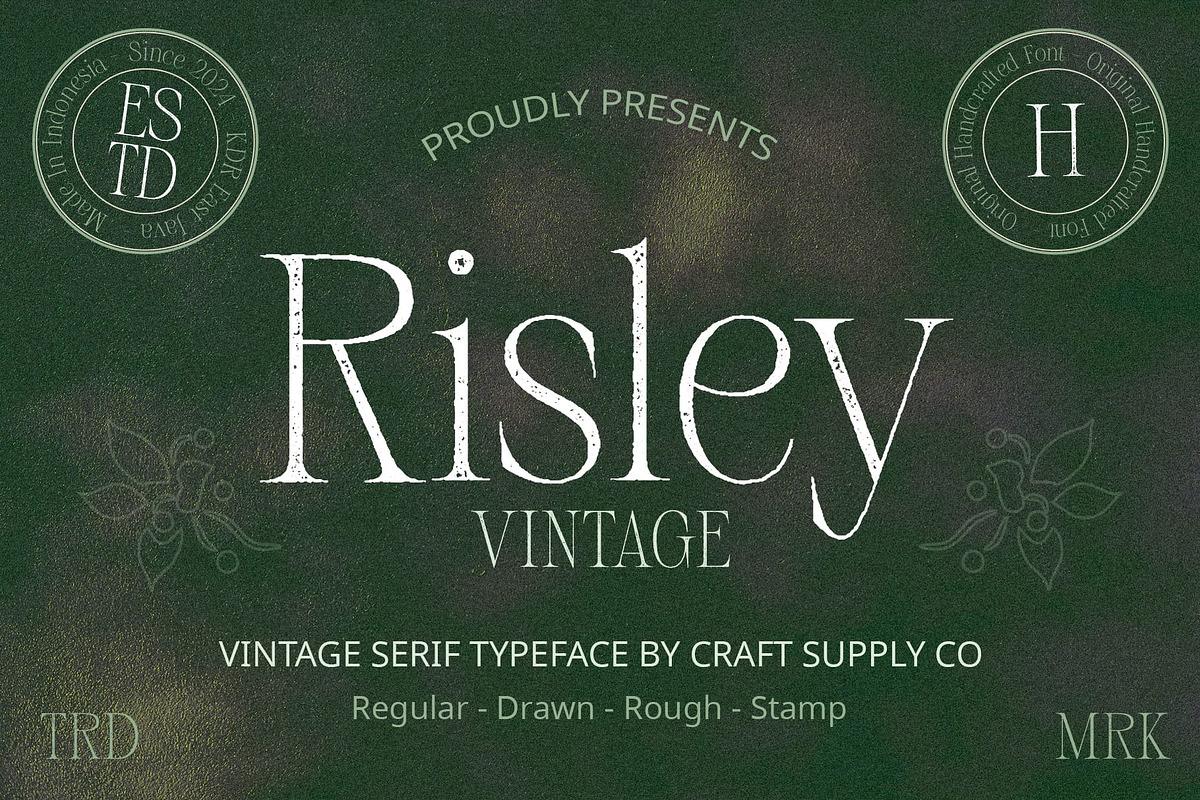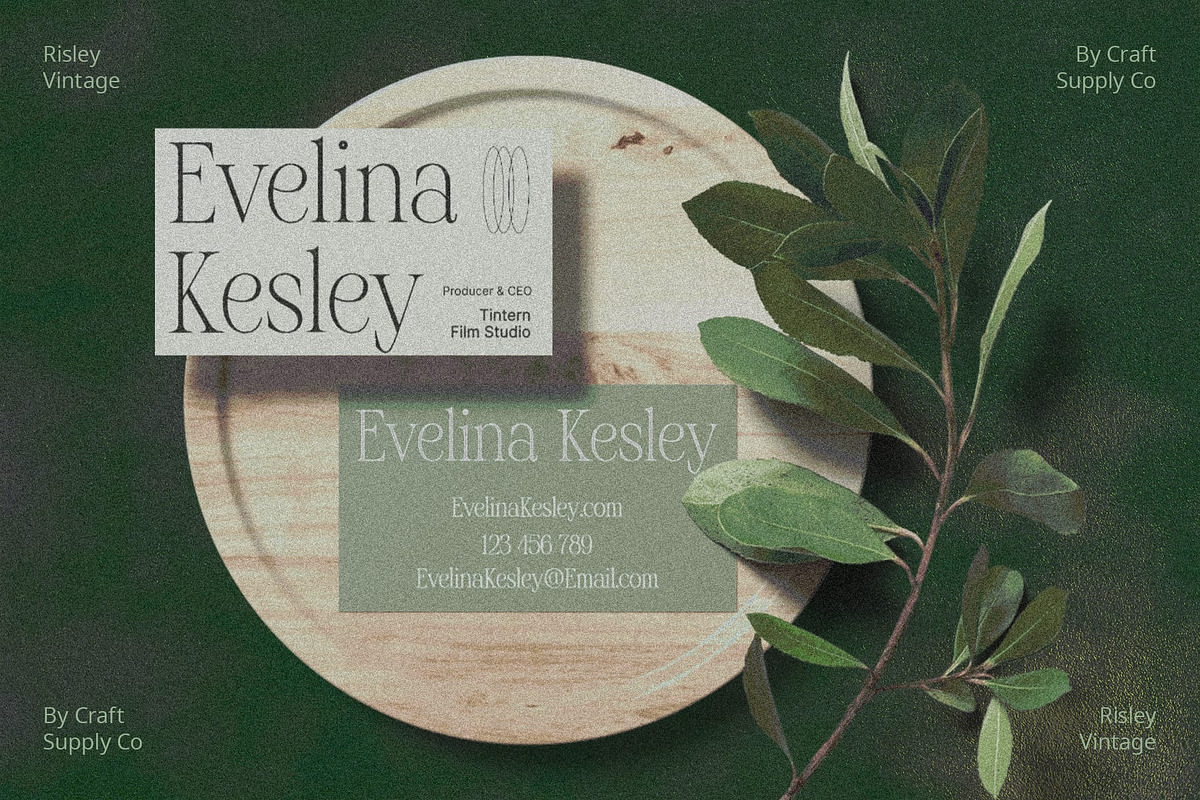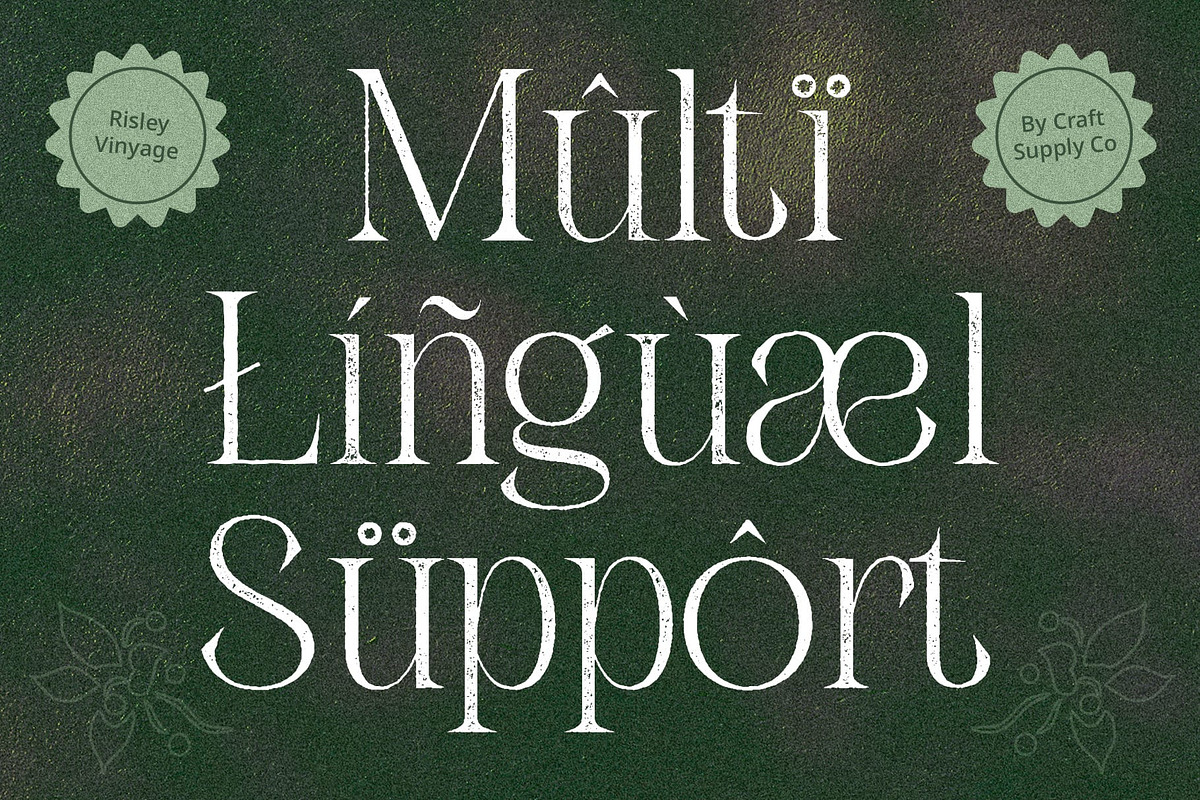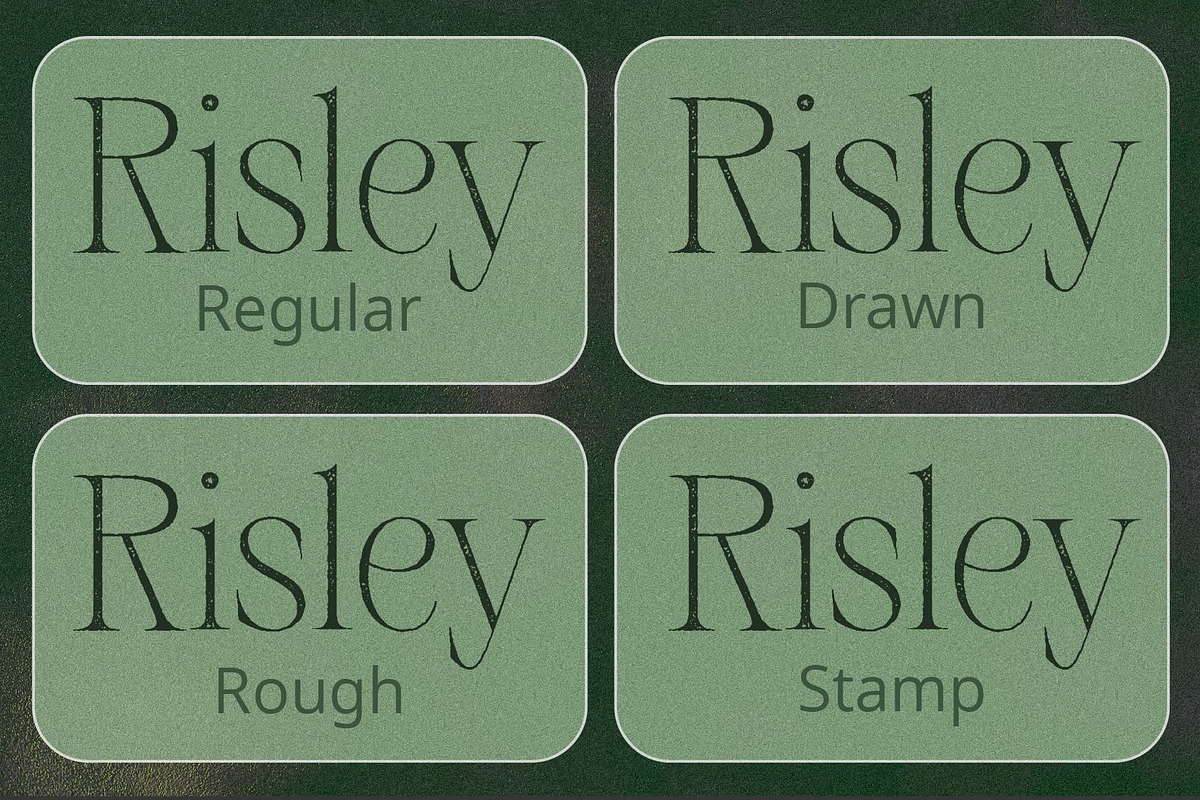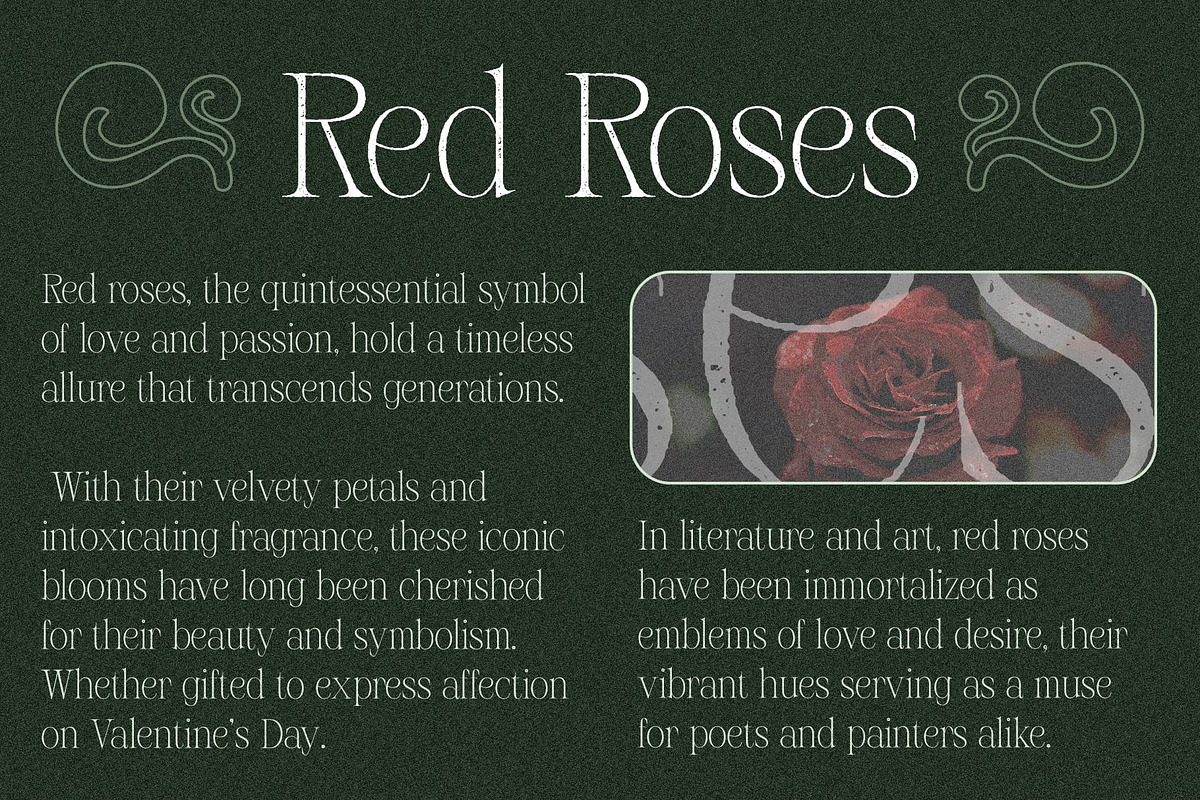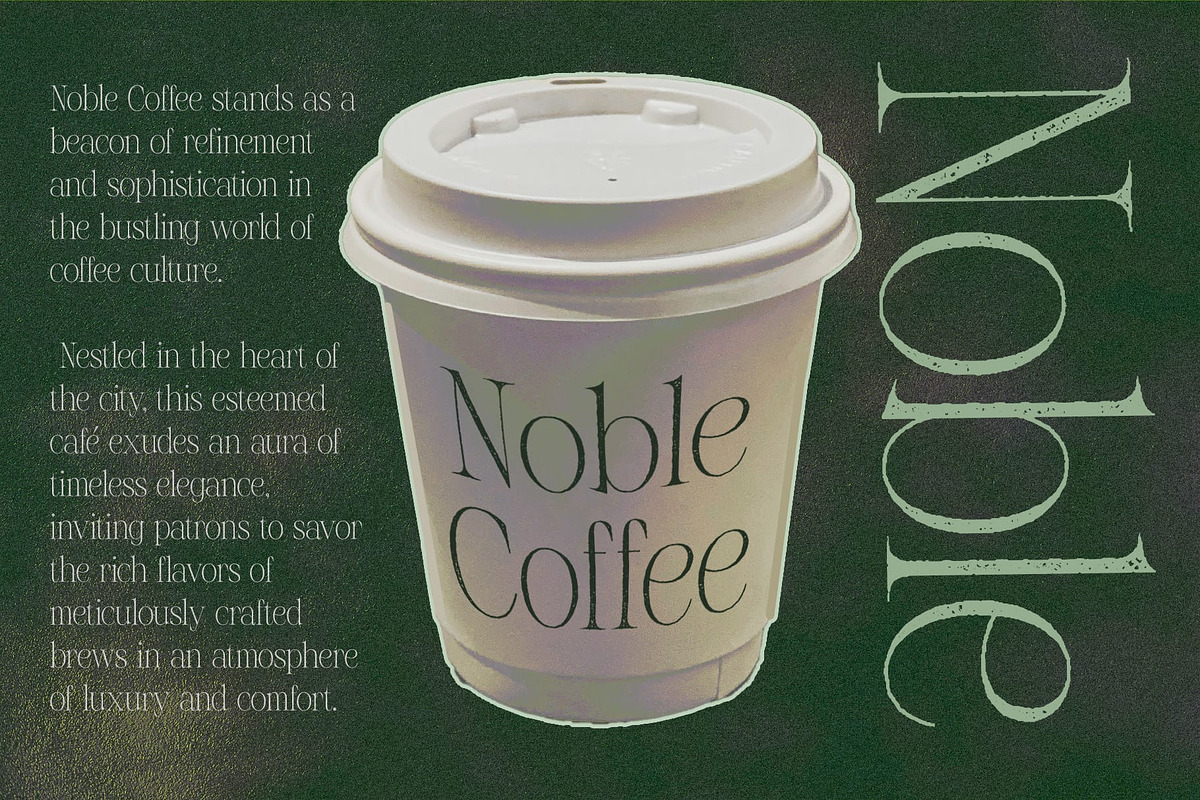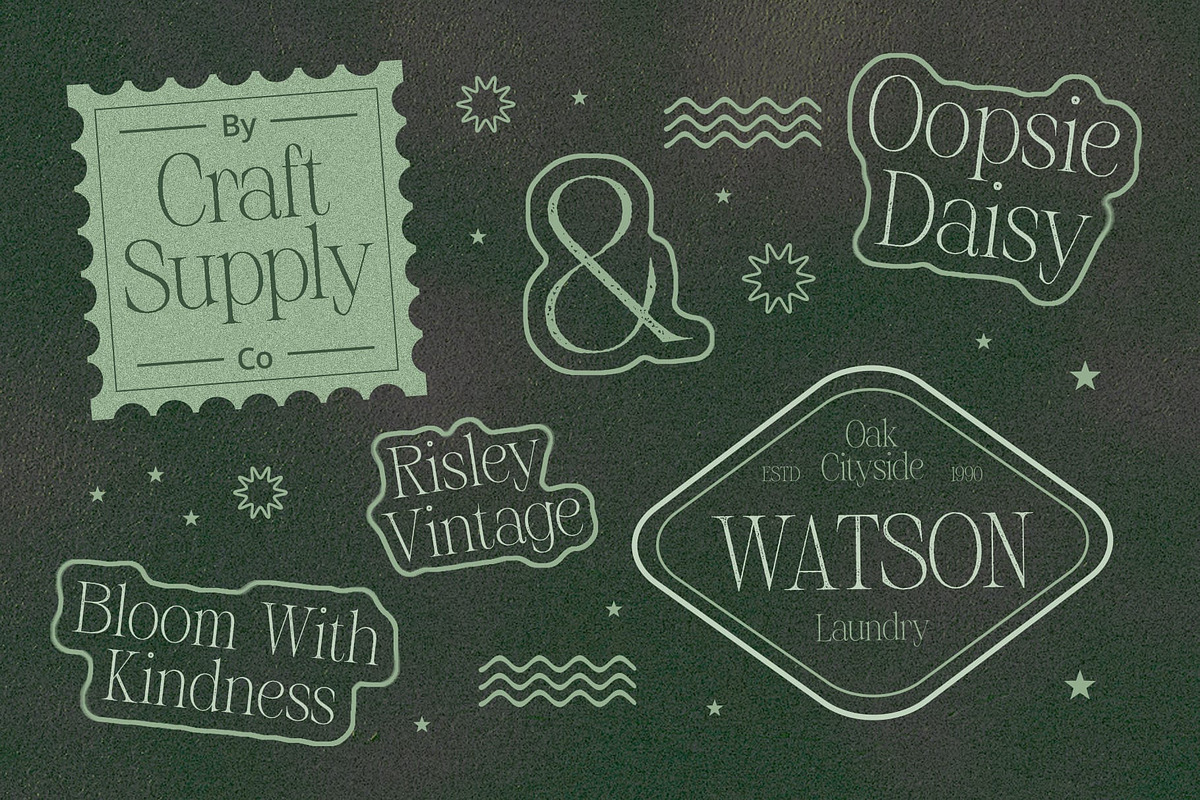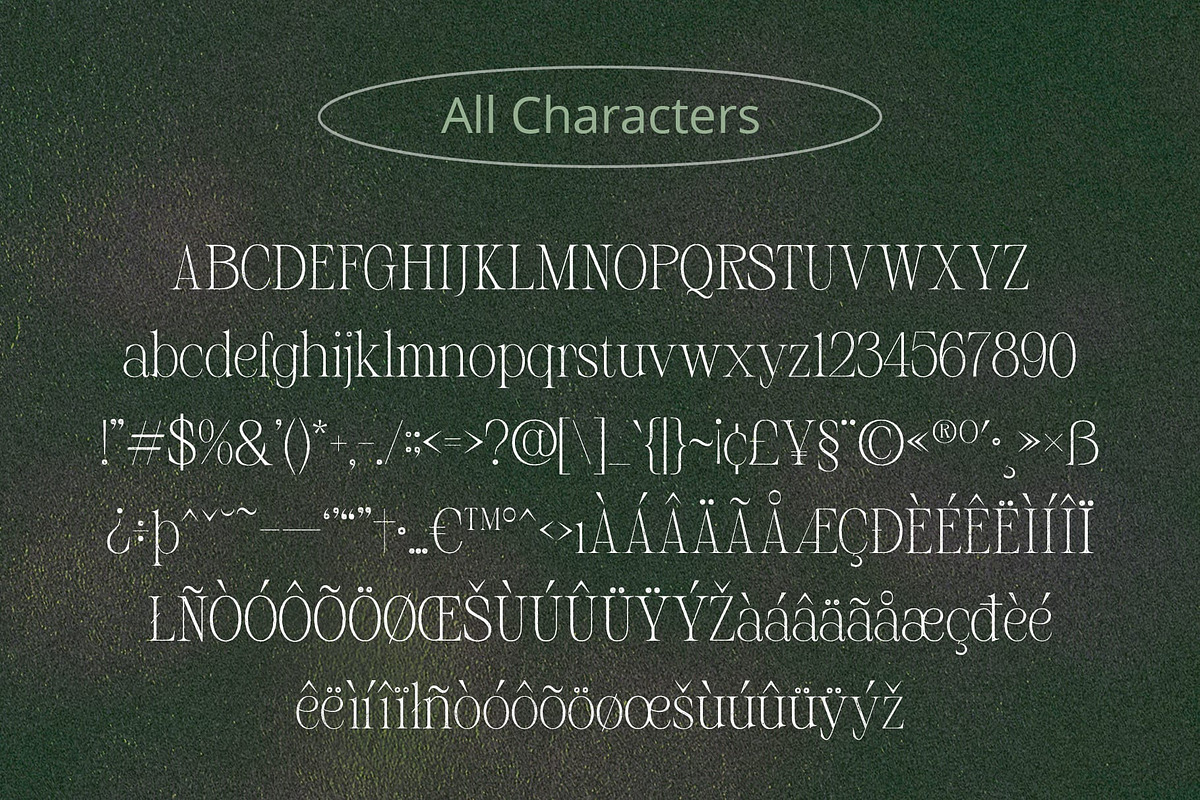
Risley Vintage
Risley Vintage: Evoking Nostalgic Vibes
Vintage Serif Appeal Risley Vintage presents a serif display font with a distinctive low-contrast design and thin strokes. Its elegant serif shapes exude a timeless charm reminiscent of classic typography.
Subtle Yet Striking With its low-contrast appearance and delicate strokes, This font achieves a subtle yet striking presence. The thin strokes add a touch of sophistication, while the rough stamp drawn effect enhances its vintage allure.
Retro Charm with a Modern Twist Combining retro aesthetics with contemporary design elements, This font offers a unique blend of old and new. Its vintage-inspired style, coupled with the rough stamp drawn effect, creates a captivating visual experience.
Versatile Application Ideal for various design projects, This font lends itself well to branding, packaging, editorial design, and more. Its vintage appeal and subtle elegance make it a versatile choice for both digital and print applications.
Timeless Elegance with a Vintage Flair This font captures the essence of vintage typography with its low-contrast serif design and rough stamp drawn effect. Whether used for branding or editorial projects, it adds a touch of timeless elegance and nostalgic charm to any design endeavor.